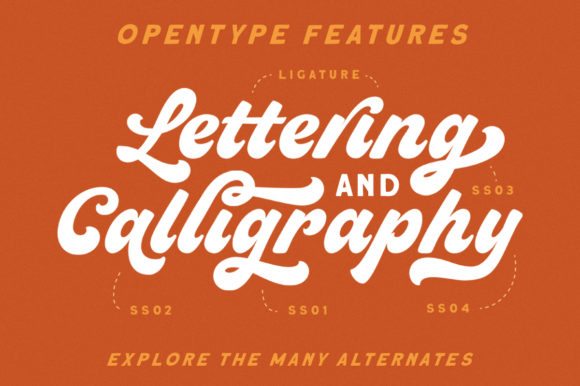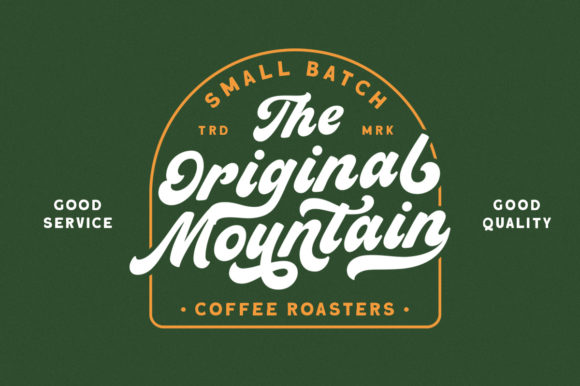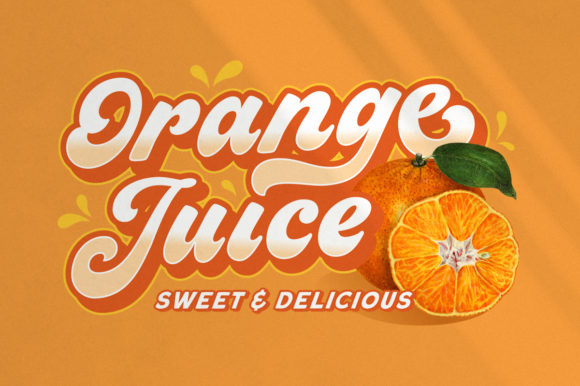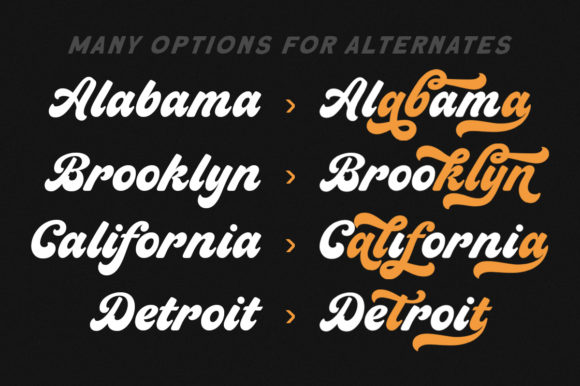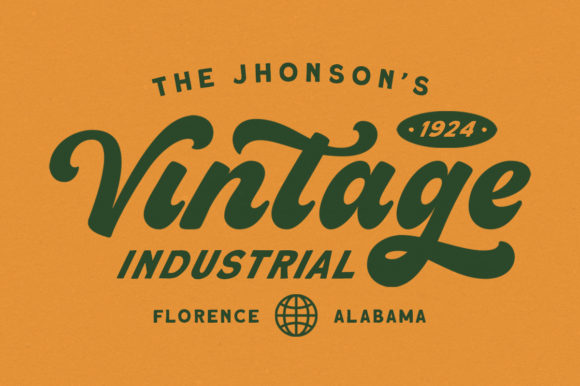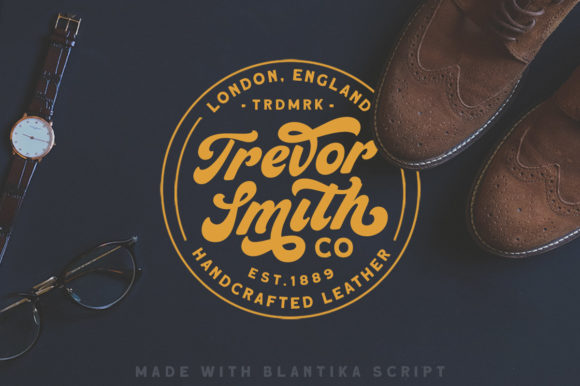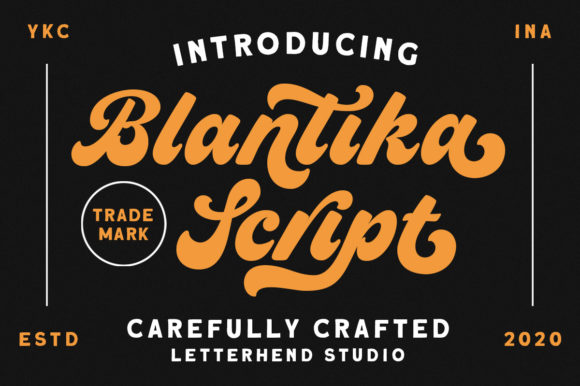
Introducing Blantika Font: A Timeless Vintage Script for Your Designs
Are you looking for a font that exudes confidence, strength, and a touch of nostalgia? Look no further than Blantika Font, a beautiful and bold vintage-styled script font that’s perfect for designers and crafters alike. In this article, we’ll dive into the world of Blantika Font, exploring its unique features, uses, and benefits.
A Strong and Dynamic Font for Your Designs
Blantika Font reads as strong, confident, and dynamic, making it an excellent choice for a wide range of design projects. Its bold and vintage-inspired style adds a touch of sophistication and elegance, while its script font style injects a sense of playfulness and whimsy. Whether you’re working on a logo, branding project, or marketing material, Blantika Font is sure to make a statement.
Nostalgic Character for Your Designs
One of the standout features of Blantika Font is its ability to add tons of nostalgic character to your designs. The font’s vintage style is reminiscent of a bygone era, evoking memories of classic advertisements, movie posters, and product packaging from the past. By incorporating Blantika Font into your designs, you can tap into this nostalgia and create a sense of timelessness and familiarity.
Blantika Font is an excellent choice for designers and crafters who want to add a touch of personality and style to their work. Whether you’re creating digital products, such as social media graphics and blog posts, or physical products, like craft supplies and DIY projects, Blantika Font is a versatile and reliable choice. Its bold and dynamic style makes it perfect for headlines, titles, and other prominent text elements, while its script font style is ideal for adding a touch of whimsy and flair.
Key Features of Blantika Font
• Bold and dynamic style: Blantika Font makes a statement with its bold and confident style, perfect for headlines and titles.
• Vintage-inspired design: The font’s vintage style adds a touch of nostalgia and timelessness to your designs.
• Script font style: Blantika Font’s script style injects a sense of playfulness and whimsy into your designs.
• High-quality and versatile: The font is perfect for a wide range of design projects, from digital products to physical products.
Tips for Using Blantika Font
• Use it as a headline font: Blantika Font is perfect for headlines and titles, where its bold and dynamic style can make a statement.
• Pair it with a simple font: For body text, pair Blantika Font with a simple and clean font to create contrast and visual interest.
• Experiment with colors and textures: Blantika Font looks great in a variety of colors and textures, so don’t be afraid to experiment and find the perfect combination for your design.
Blantika Font is a beautiful and bold vintage-styled script font that’s perfect for designers and crafters alike. Its strong and dynamic style, nostalgic character, and versatility make it an excellent choice for a wide range of design projects. Whether you’re looking to add a touch of sophistication and elegance or playfulness and whimsy, Blantika Font is sure to deliver. So why not give it a try and see how it can elevate your designs?